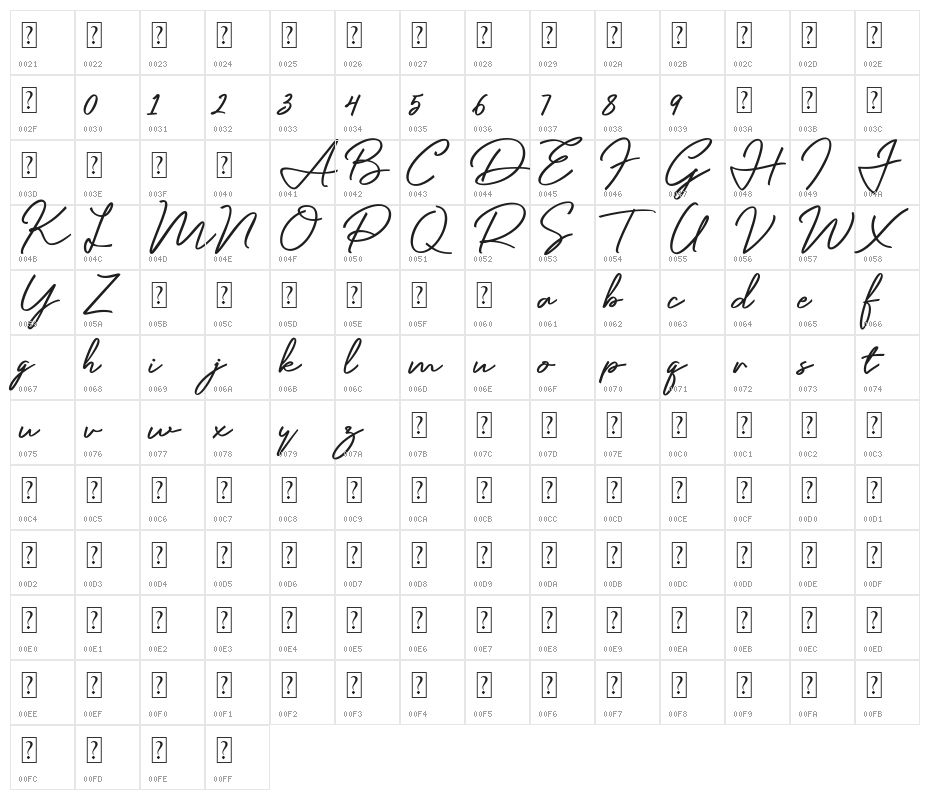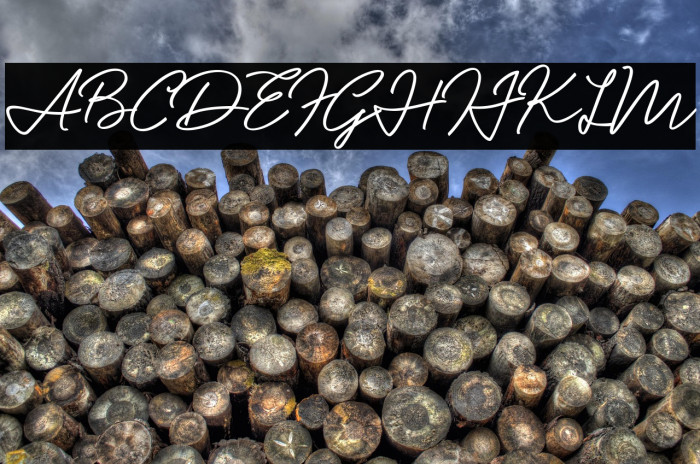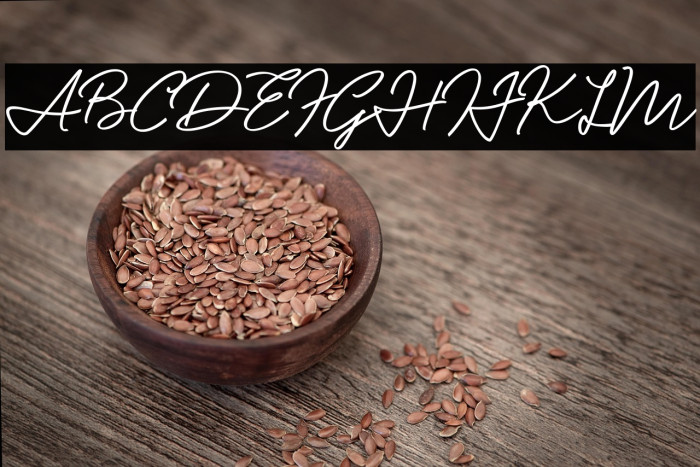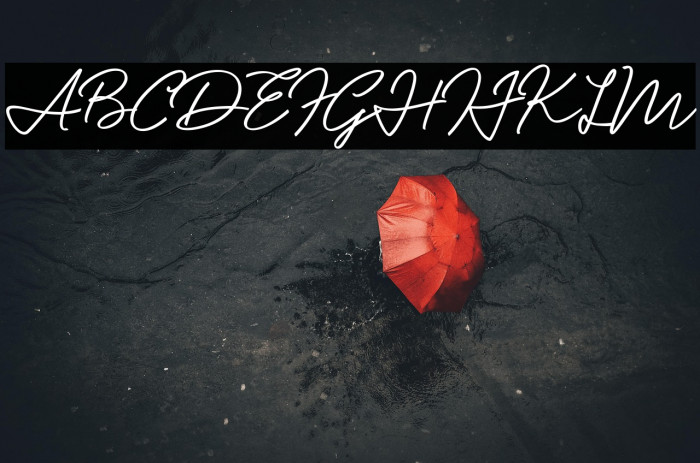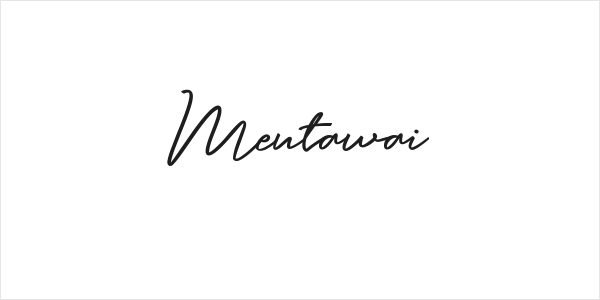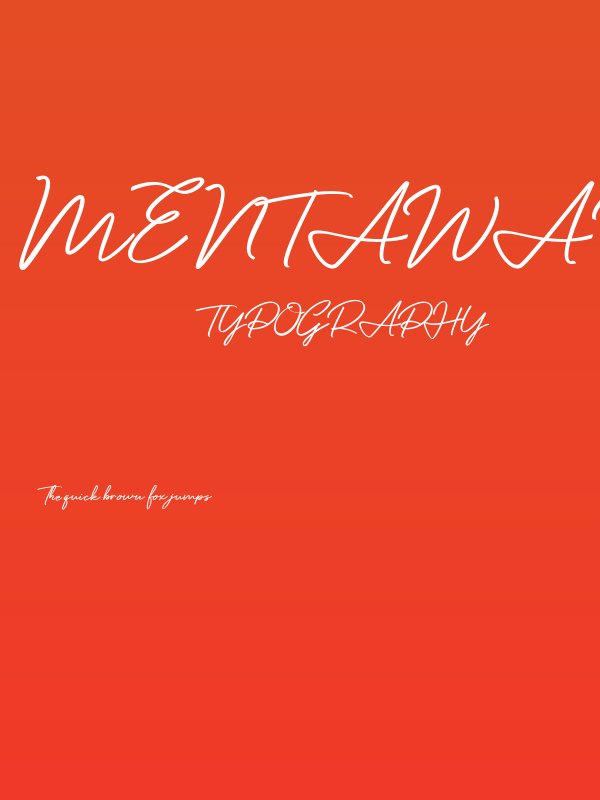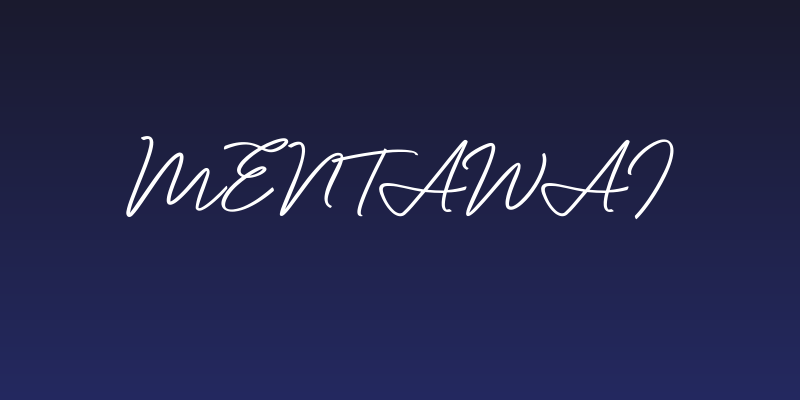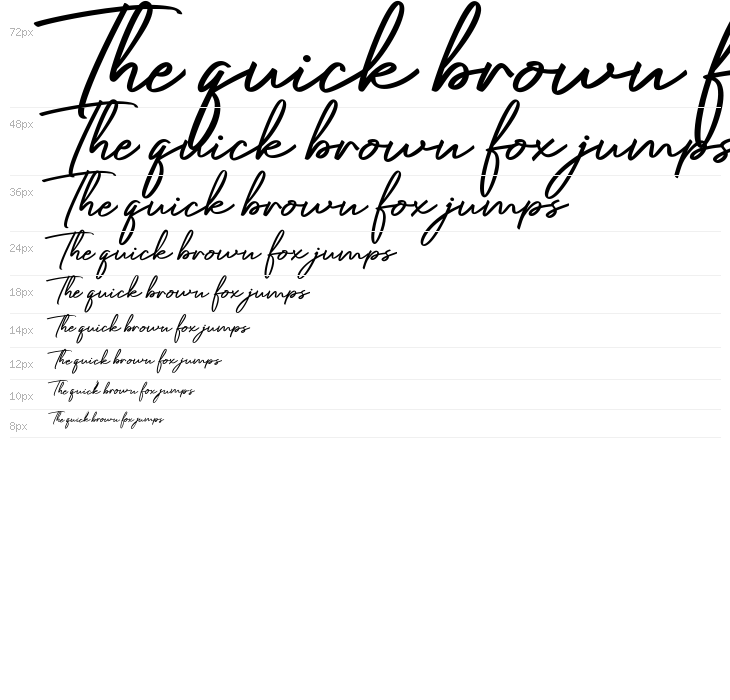
Mentawai Font
Mentawai Description
This font features a flowing, cursive style that exudes elegance and sophistication. The uppercase letters are gracefully connected, with smooth transitions and a consistent slant, creating a harmonious and fluid appearance. The lowercase letters maintain the same fluidity, with some characters featuring distinctive loops and flourishes that add a touch of flair. The numerals are bold and clear, maintaining the cursive style while ensuring readability. The font's overall design is well-suited for projects that require a personal, handwritten touch, such as invitations, greeting cards, or branding materials. Its stylish and modern aesthetic makes it versatile for various creative applications.